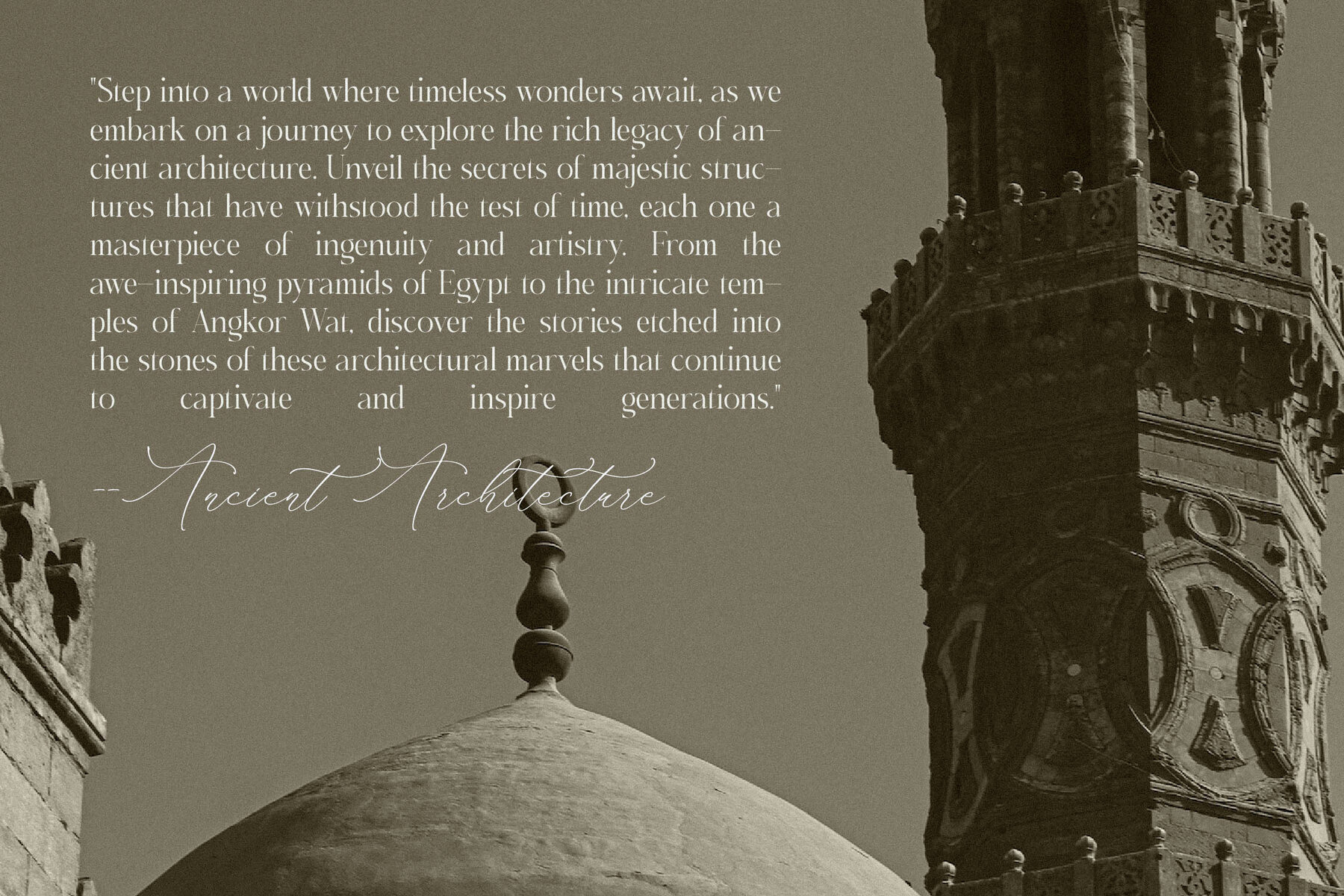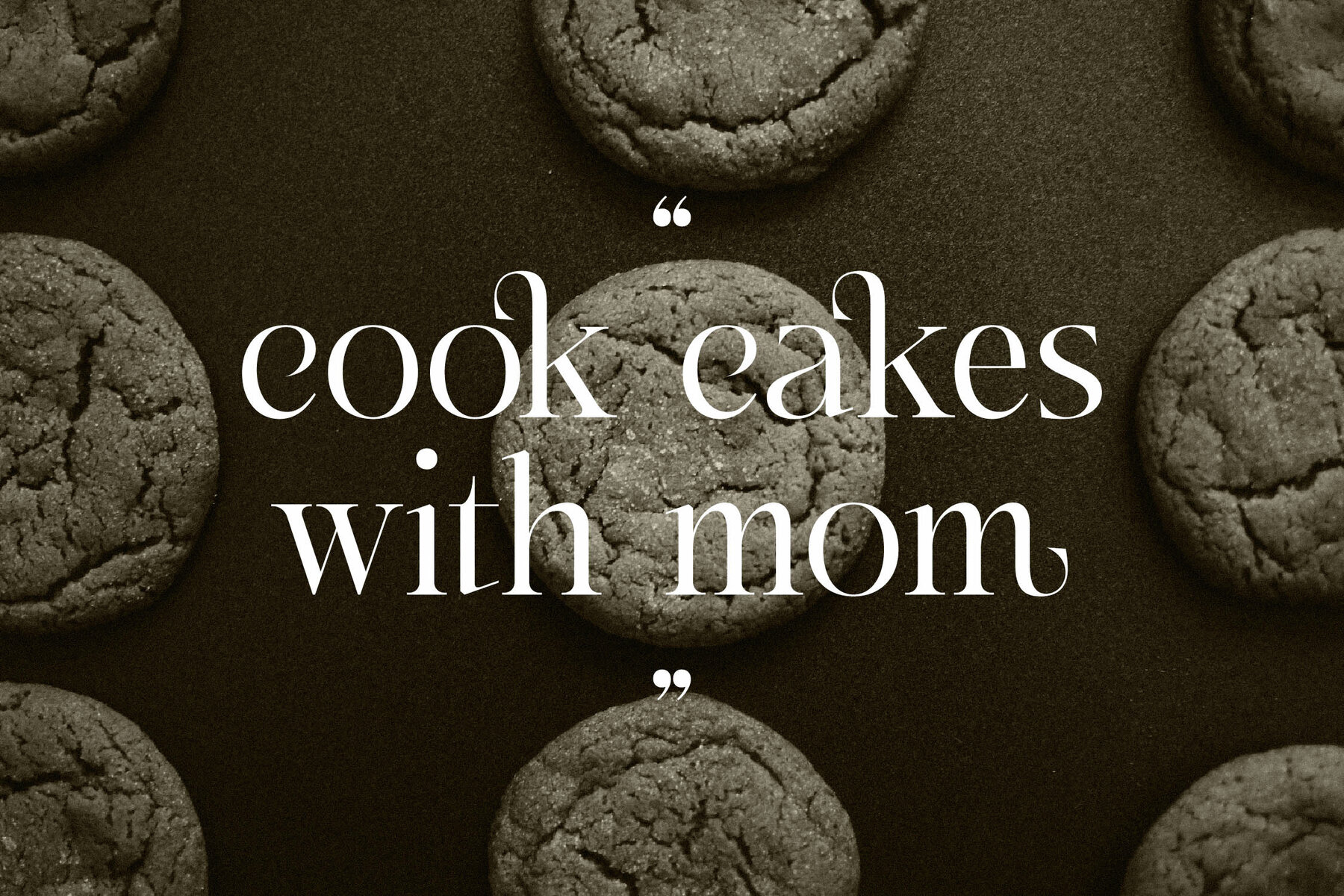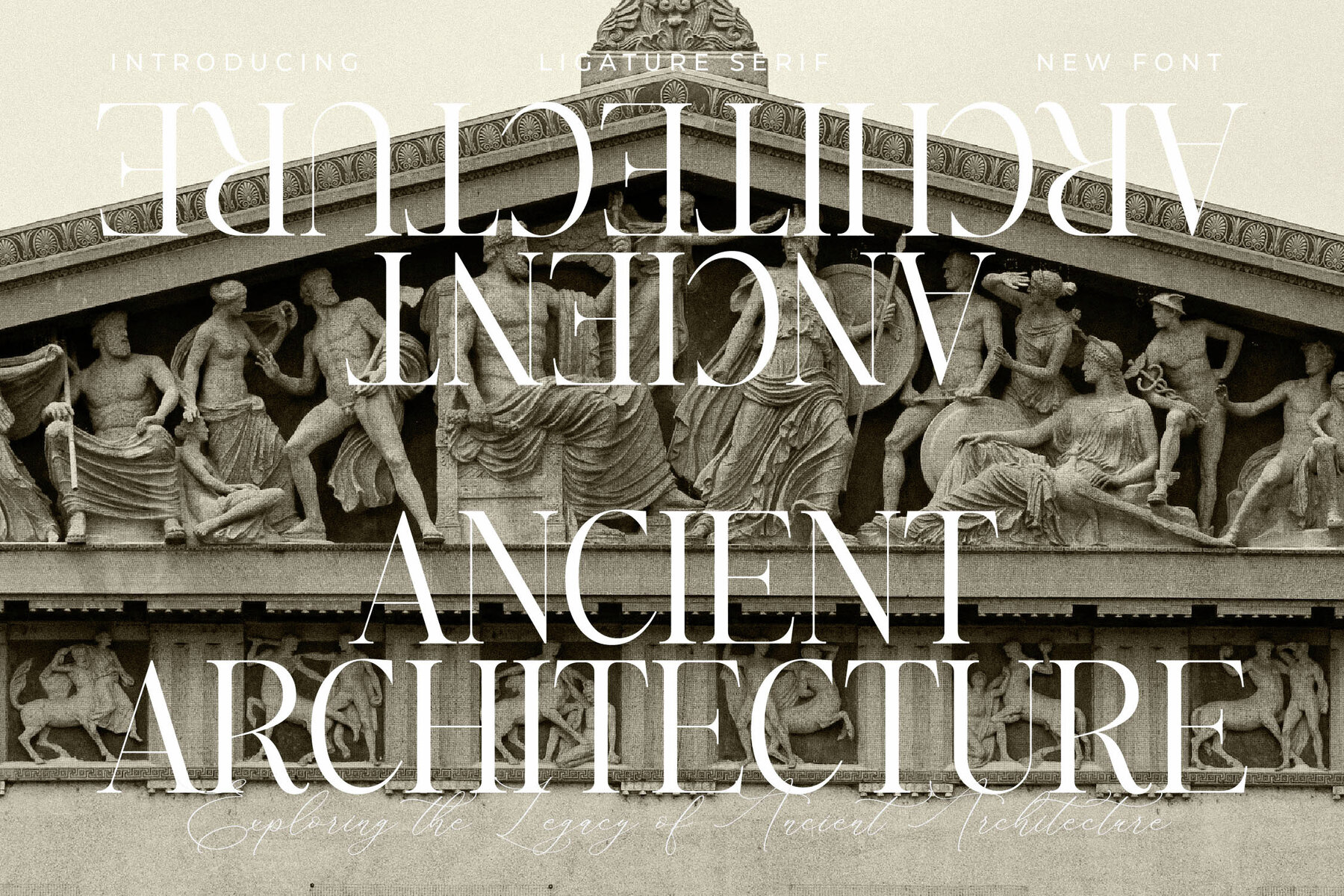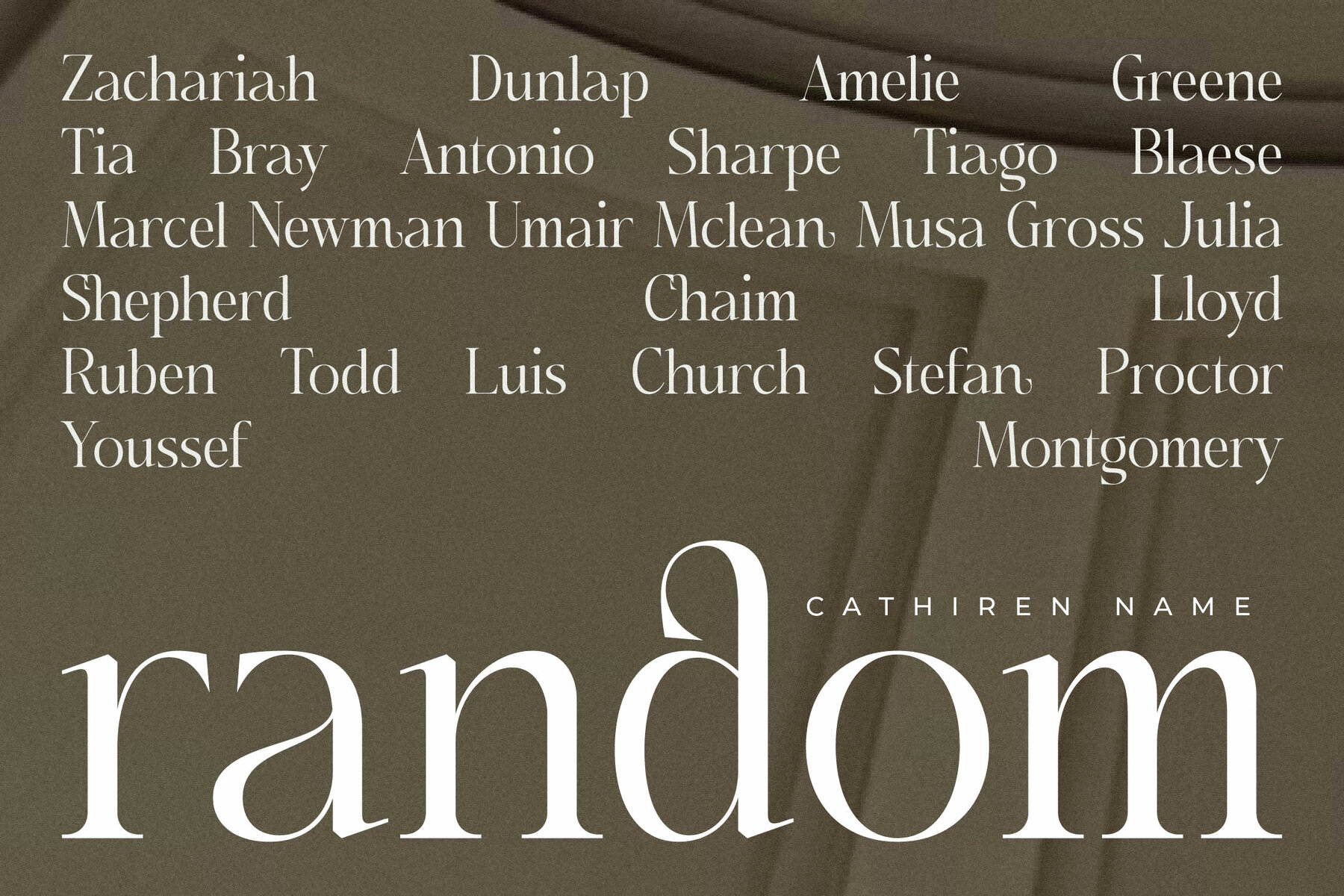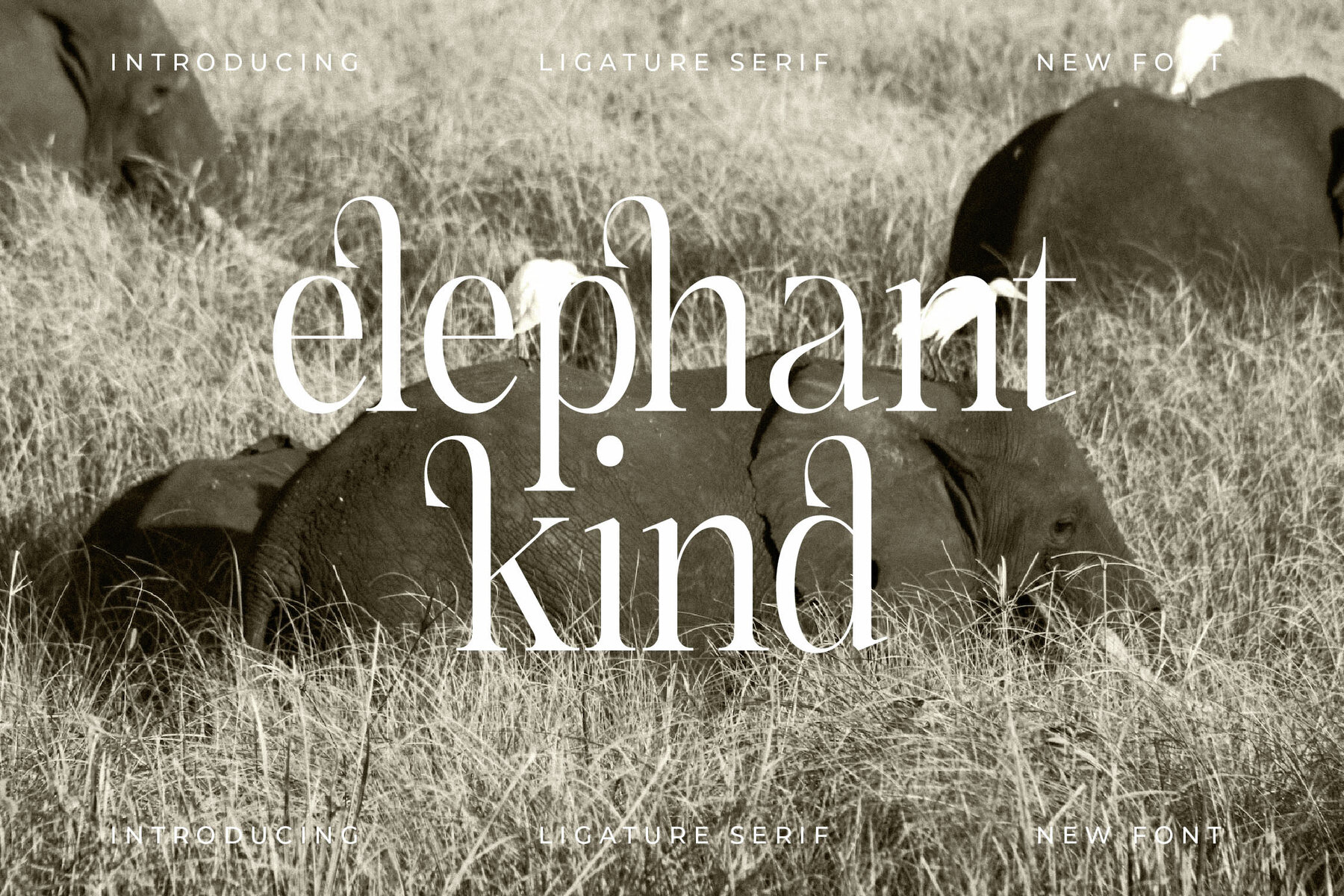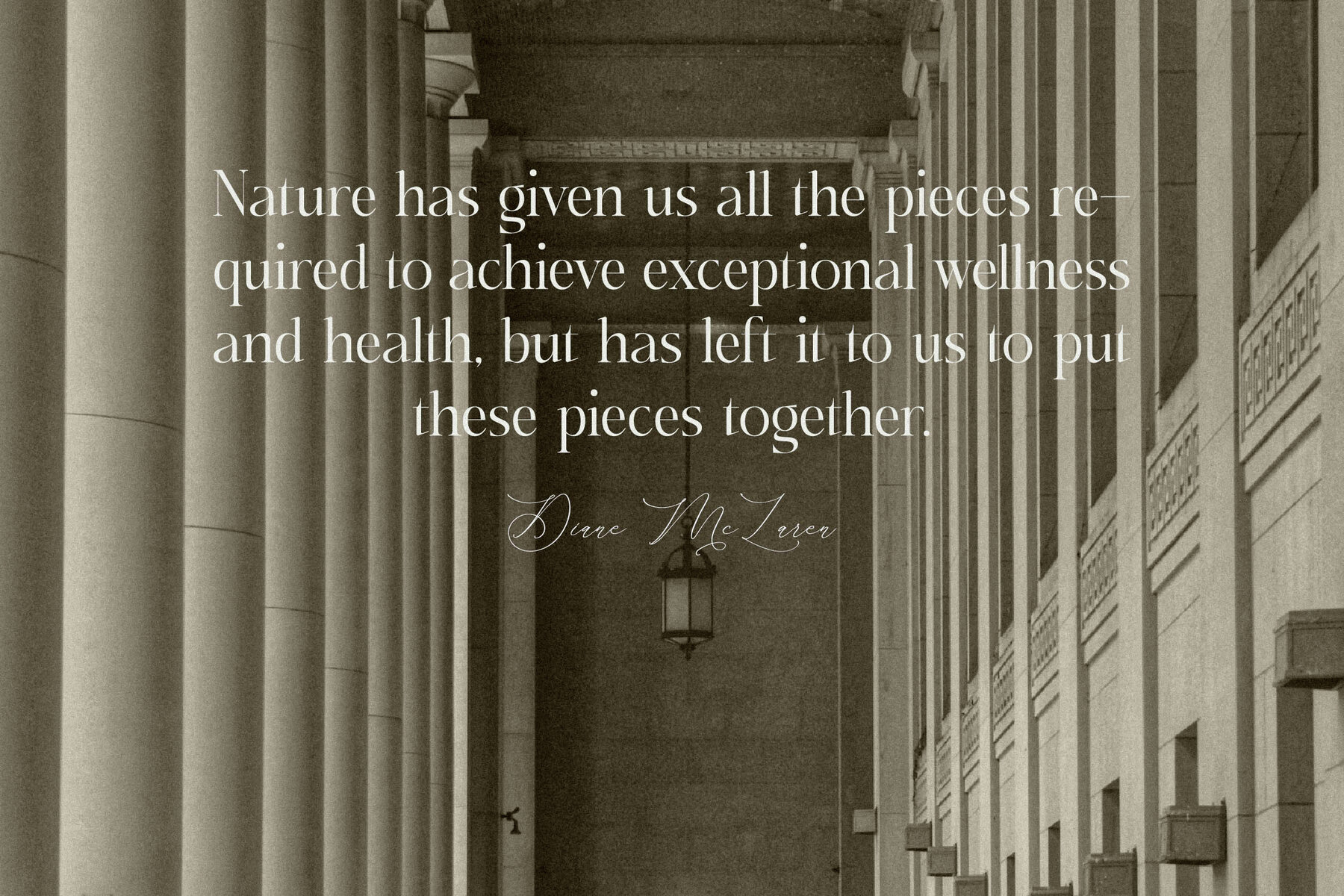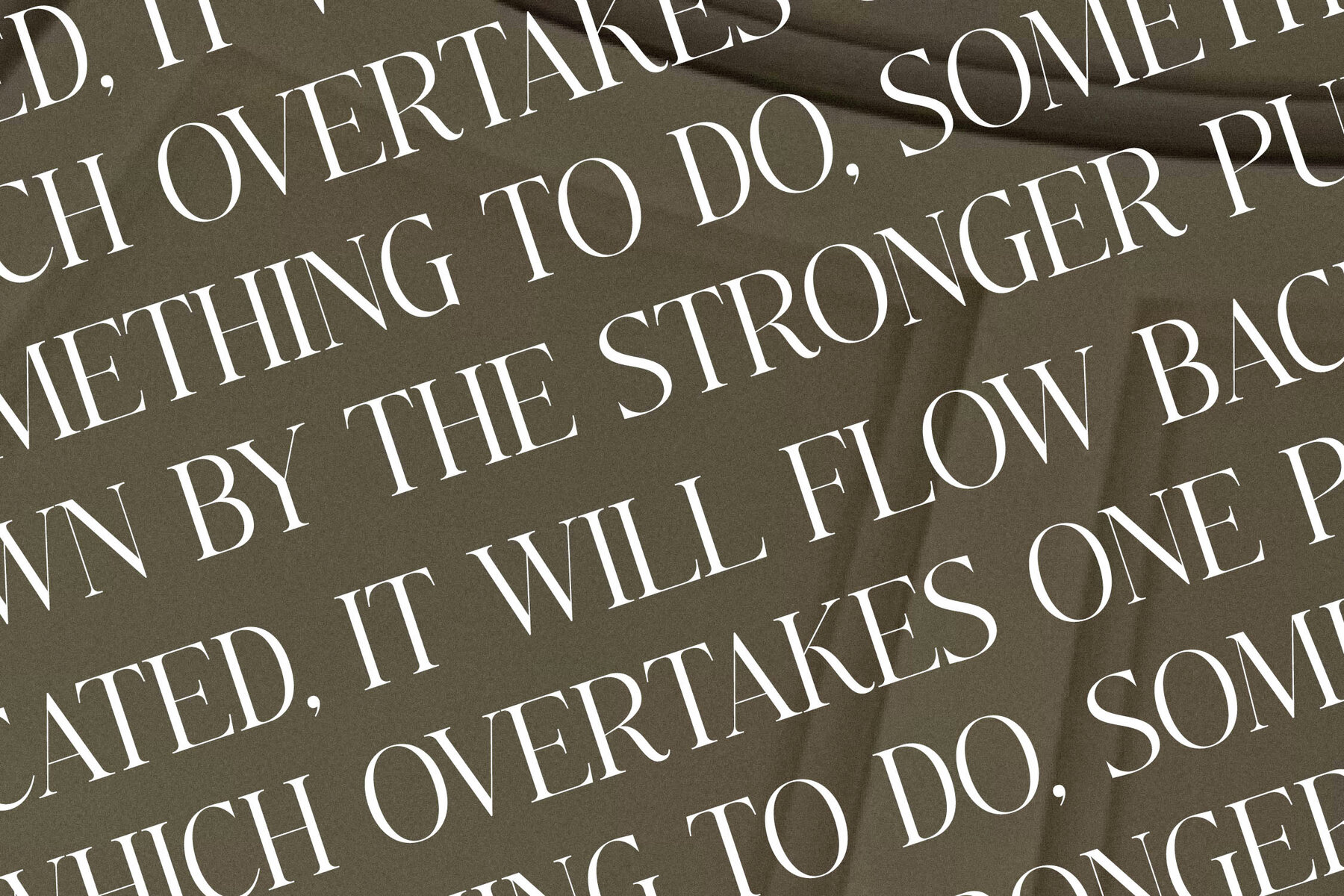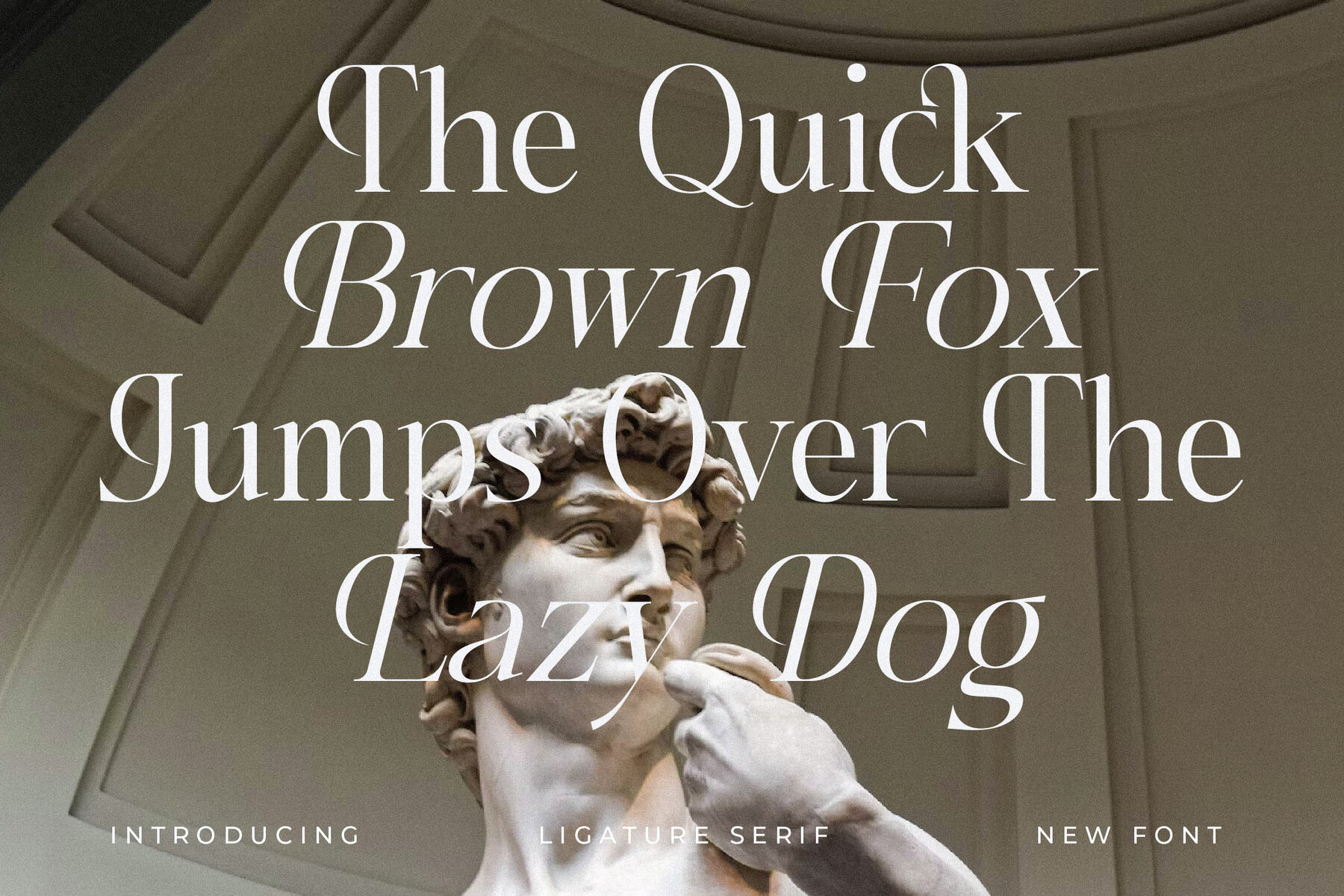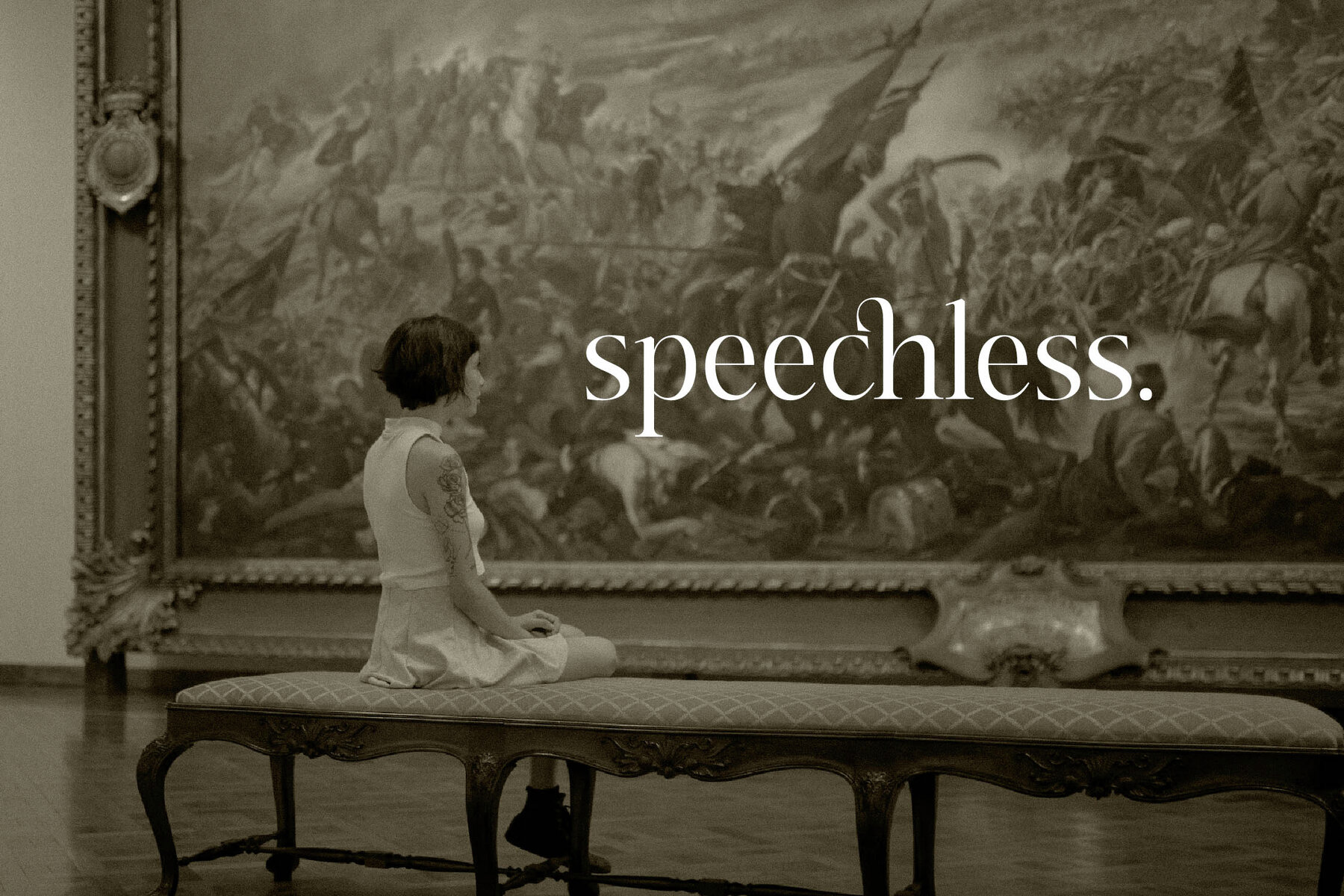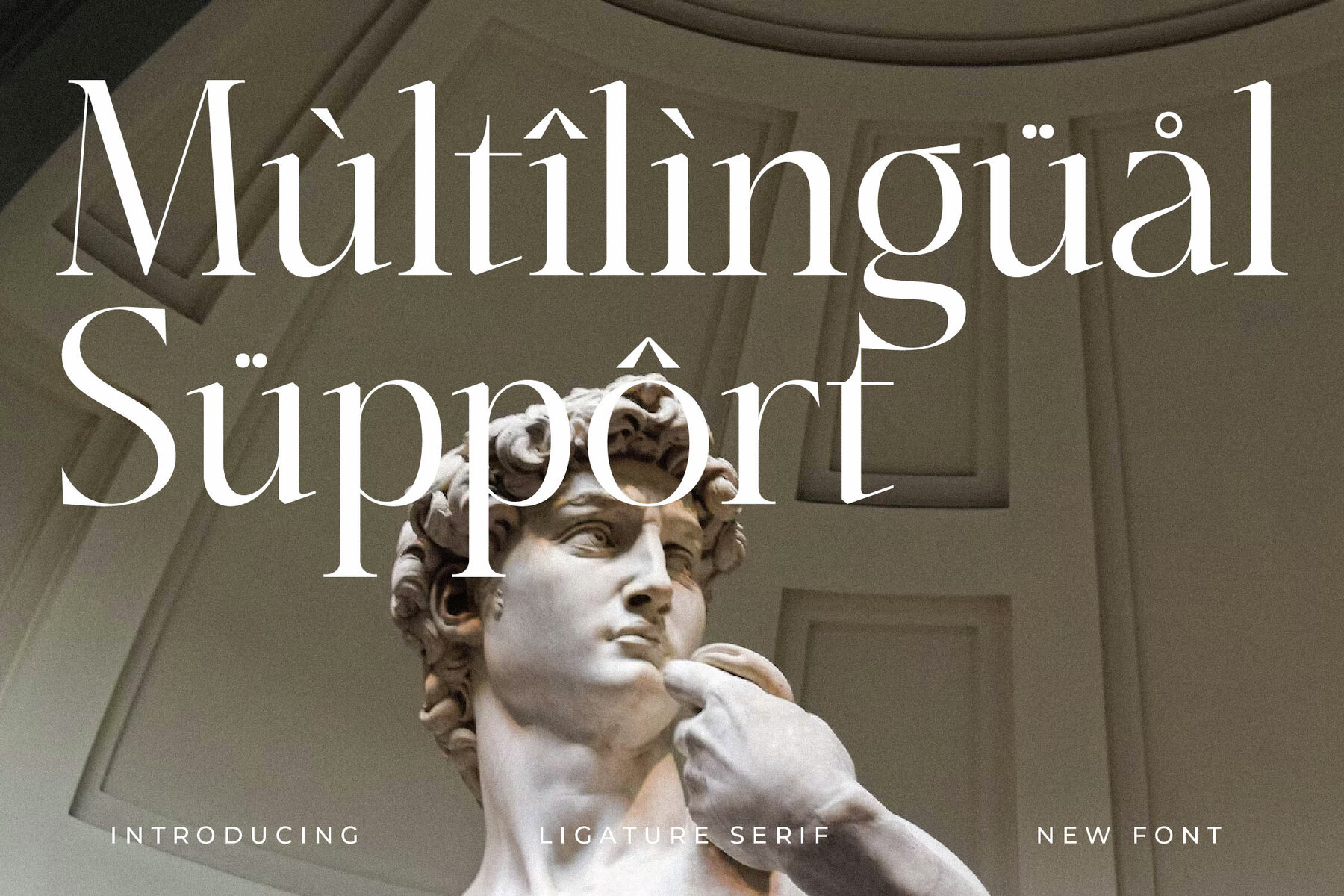
Cathiren Font
Cathiren Regular
Cathiren Italic
Introducing Cathiren Typeface by Storytype Studio—a seamless blend of modern elegance and classic design. With its distinctive style, Cathiren offers a refined and luxurious look, making it an ideal choice for sophisticated logos, striking book or movie titles, chic fashion branding, stylish magazines, elegant clothing lines, and artistic quotes. Its versatility allows it to cater to a wide range of creative projects.Cathiren Typeface